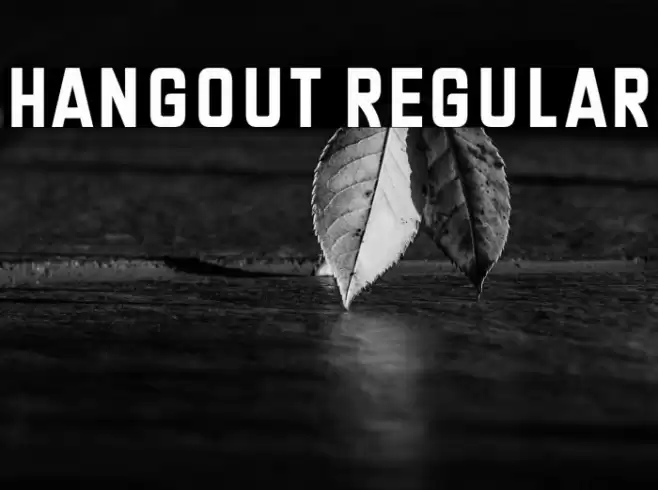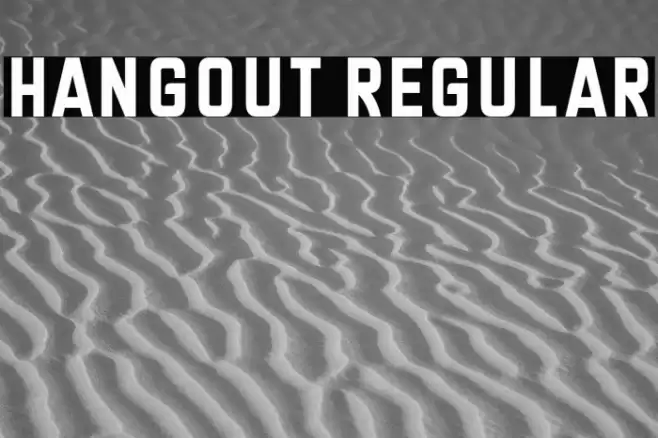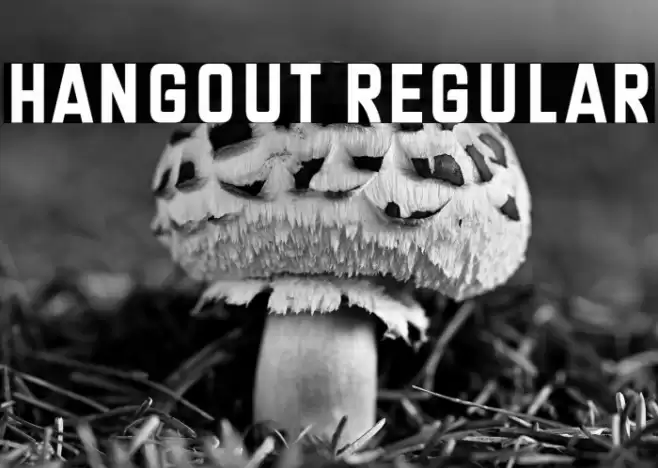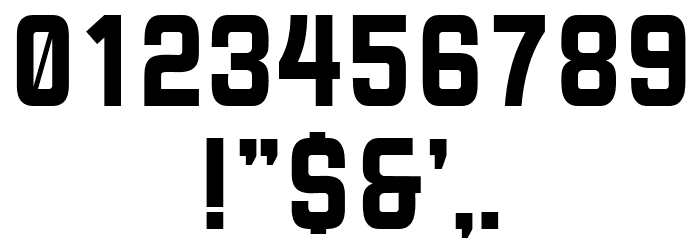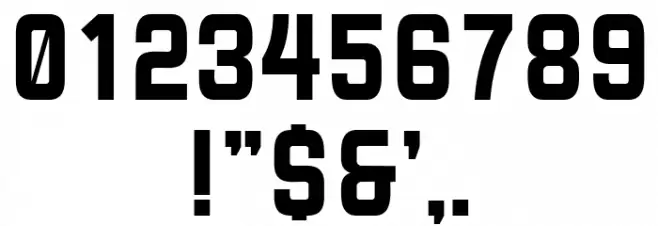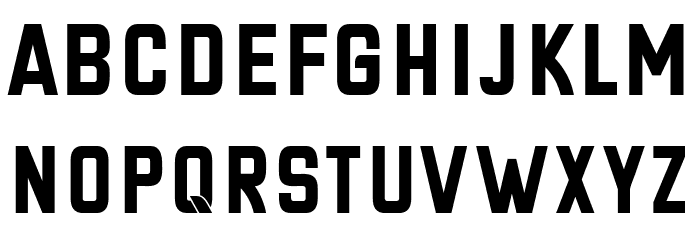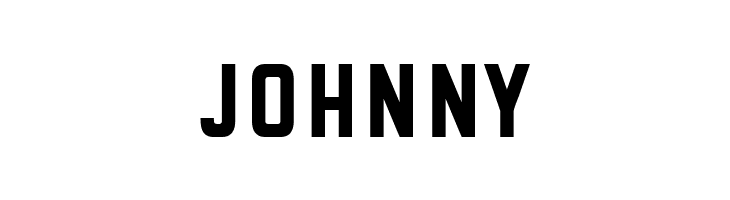
Hangout Regular Font
Hangout Regular Description
This font features a bold and modern design with strong geometric shapes and clean lines. The uppercase letters are uniform in height, providing a consistent and structured appearance. The numerals are distinct and easy to read, with a slight angularity that adds a contemporary touch. Special characters are well-integrated, maintaining the font's cohesive style. The overall look is sleek and professional, making it suitable for a variety of design applications.
A bold, modern font with geometric shapes and clean lines from Uncategorized fonts.
- Proposed Projects: Ideal for branding, advertising, posters, and digital media where a strong, modern presence is desired.